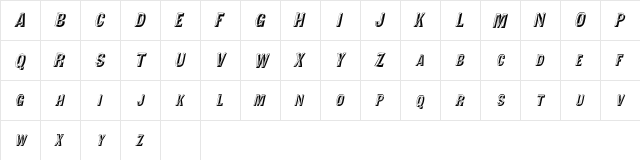
ValdivaFacetsSCapsSSK Italic
Design Context for ValdivaFacetsSCapsSSK Typeface
ValdivaFacetsSCapsSSK takes a measured approach to typography — its balanced proportions and neutral character make it a reliable workhorse for both digital and print work. Its italic angle brings a sense of urgency and motion to the letterforms.
Pro Tip: Use ValdivaFacetsSCapsSSK for emphasis, pull quotes, and subheadings where its slanted energy can add rhythm to the layout.